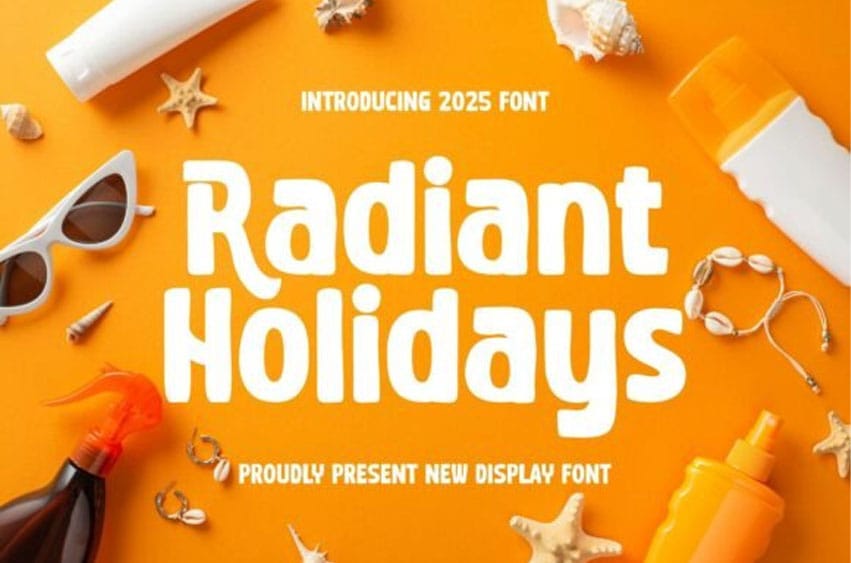
Radiant Holidays Font is a bold and sunny display font that radiates fun and relaxation.
With its rounded, slightly quirky letterforms and beachy vibe, it’s perfect for summer campaigns, resort branding, travel brochures, and holiday-themed packaging. It brings warmth and joy to every letter, just like a perfect vacation.